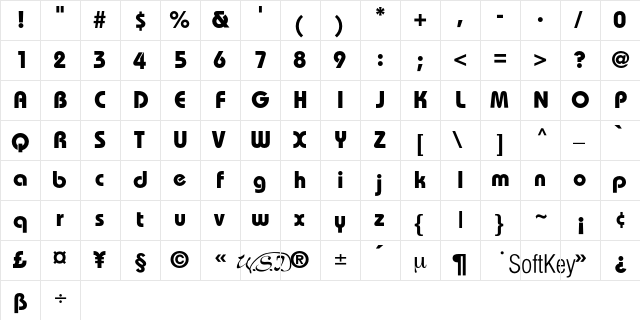
BordeauxHeavy Regular
Design Context for BordeauxHeavy Typeface
BordeauxHeavy takes a measured approach to typography — its balanced proportions and neutral character make it a reliable workhorse for both digital and print work.